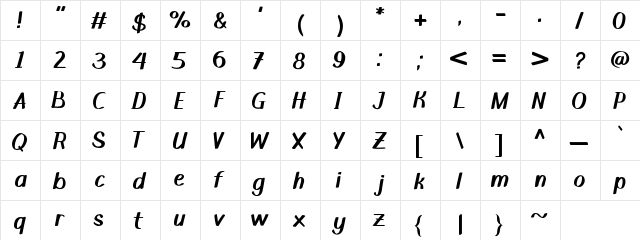
Ensiklopedia Regular
| Foundry | Konsepta Studio |
| Designer | Hantodiningrat |
Design Context for Ensiklopedia Typeface
Ensiklopedia takes a measured approach to typography — its balanced proportions and neutral character make it a reliable workhorse for both digital and print work.